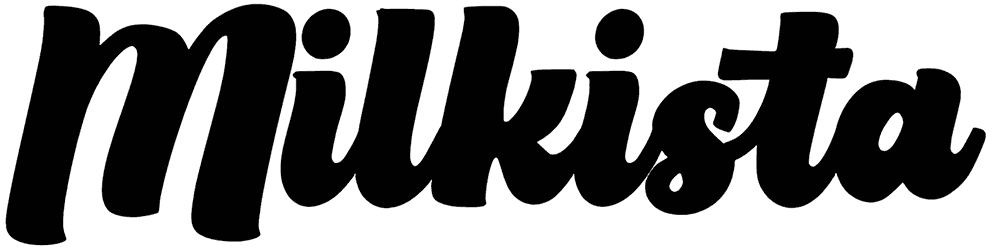
Milkista Font
Milkista is a bold script font that can help you make your brand name memorable without breaking a sweat. By using this font, you can create a beautiful and graceful charm in your characters that deserves praise and creates a strong character.
As a result, many companies that seek to maintain their appearance class and show their luxury without numbers use this food font to design their business cards, letterhead, or even their logo.